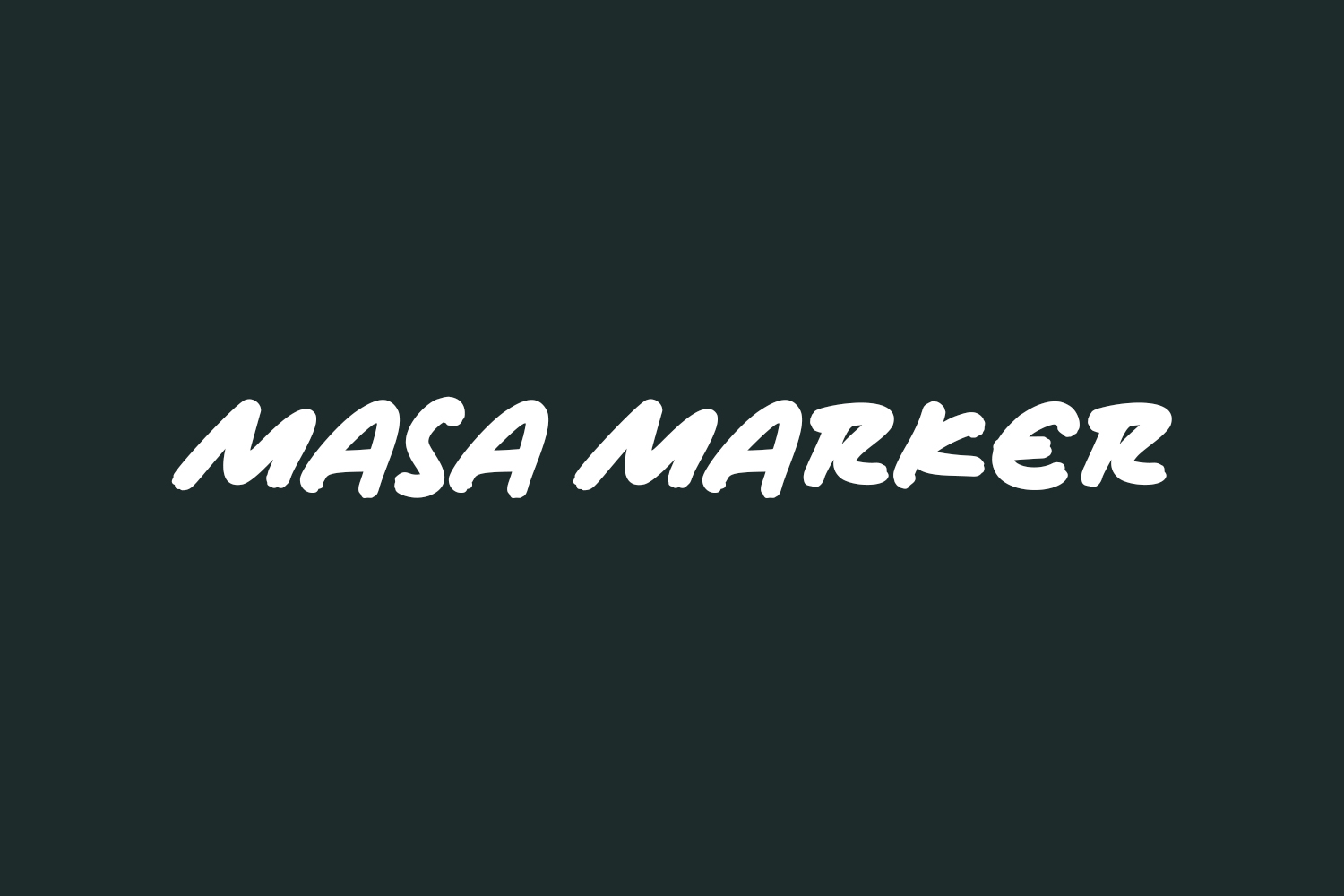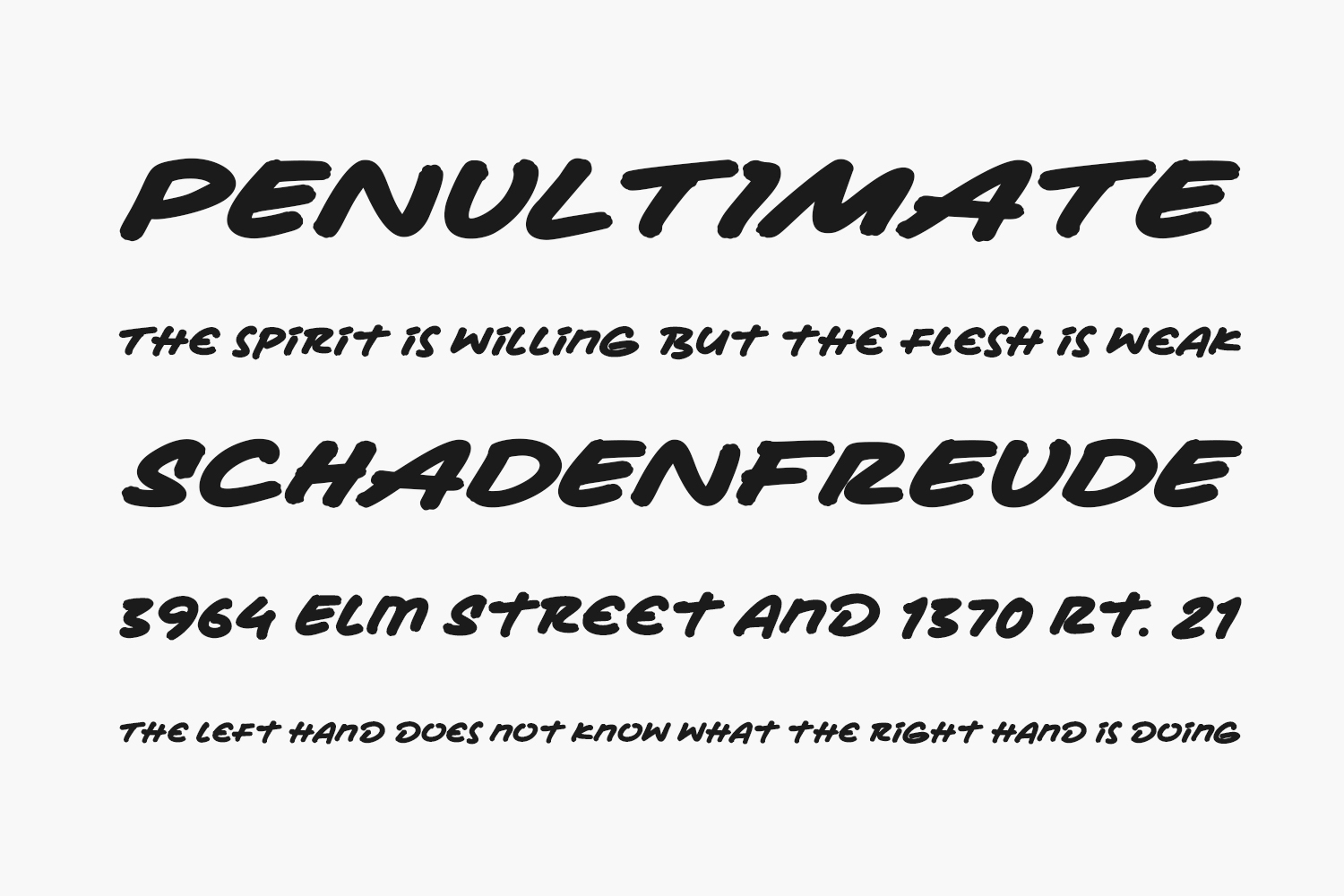
Meet Masa Marker Free Font: a versatile, chic, and whimsical handwritten script font tailored for a myriad of uses, including greeting cards, headlines, and beyond! Incorporate it into your creative endeavors to infuse them with a refined and delightful touch. Download the font for free if you need it for personal use or purchase the full version for commercial use.
Designed by Masa Aska Sanurumi